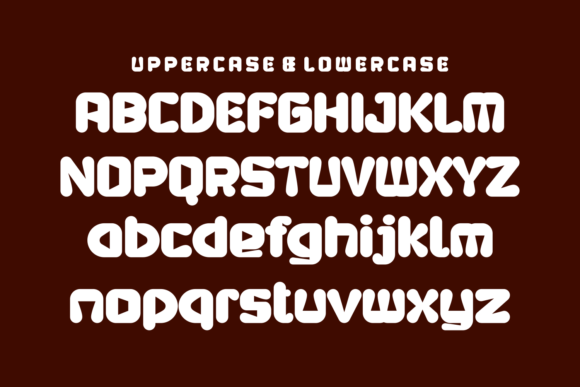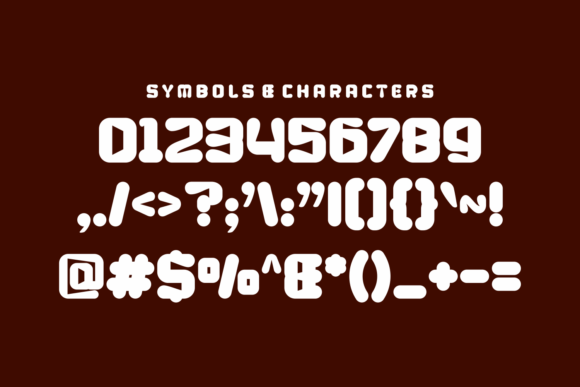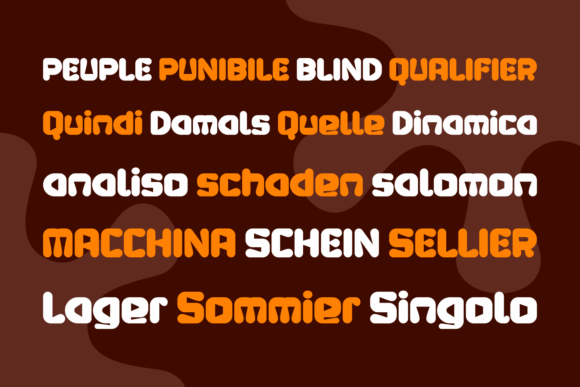
Introduction to Redos Font
As a designer, have you ever had one of those magical moments where everything comes together and your creative project suddenly feels alive? Maybe it was a burst of color, a perfectly placed image, or a font that added just the right touch of whimsy. For me, it’s moments like those that make all the hard work worth it. And that’s exactly what the Redos Font can do for your designs – add a dash of joyful magic that will leave your audience smiling.
As a valuable design resource, the Redos Font is a high-quality addition to any creative project. Its quirky charm and playful feel make it perfect for designers looking to add a touch of personality to their work. With its transparent background, this font is versatile and easy to use, and the best part? It’s available for free download, making it an accessible and affordable choice for designers of all levels.
Key Features of Redos Font
- High-quality design resource ideal for creative projects, including logos, posters, and infographics.
- Unique characteristics include its modern and minimalist aesthetic, making it perfect for contemporary design projects.
Honest Review: Redos Font
I recently had the chance to work with Redos Font on a creative project and I must say, it was a pleasant experience. The font is a high-quality design resource that offers a unique and modern aesthetic.
- ✨ High quality, resulting in crisp and clear typography
- ⚠️ Limited customization options, which may limit its use in certain design contexts
- ⚠️ Not suitable for small text sizes, as it may lose its clarity and readability
Overall, I was impressed with Redos Font’s performance in my design project. While it may have some limitations, its high quality and unique aesthetic make it a valuable addition to any designer’s toolkit. If you’re looking for a reliable and modern font, Redos Font is definitely worth considering.
Introduction to Redos Font
Redos Font is a high-quality, versatile design resource ideal for creative projects. Its transparent background and sleek design make it perfect for various applications.
Tips for Getting the Most Out of Redos Font
To get the most out of Redos Font, experiment with different font sizes, colors, and styles. Use it in combination with other design elements to create a visually appealing design.
Redos Font is ideal for use in logos, branding materials, social media graphics, and digital marketing materials. Its versatility makes it a great addition to any creative project.